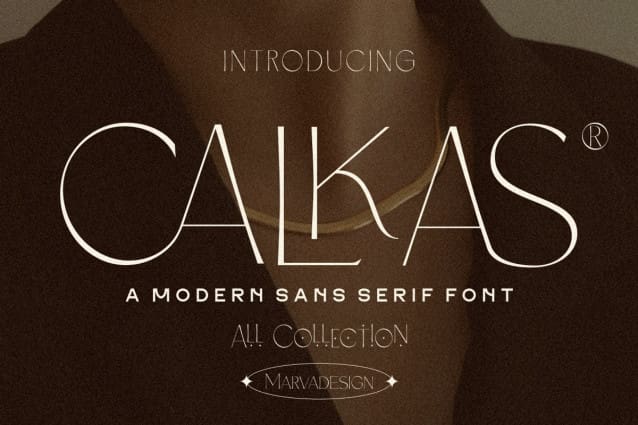
Calkas Font
Calkas Font – Modern Font is a bold and authentic display font. The font is suitable for any branding project like logo,Template Design, Product and many more. outstanding in a wide range of contexts.